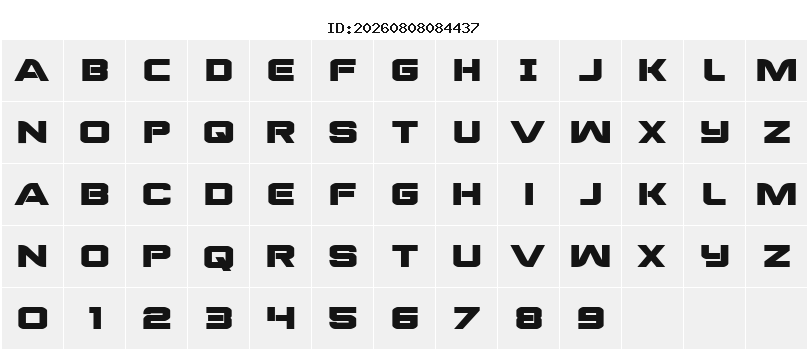
• Font Name: Praetorian Bold Expanded
• Font Style: Bold Expanded
• Full Font Name: Praetorian Bold Expanded
About Praetorian Bold Expanded.ttf
Praetorian Bold Expanded.ttf is a modern, elegant sans-serif font designed for ultimate readability and visual harmony. Perfect for branding, headlines, web design, and print materials.